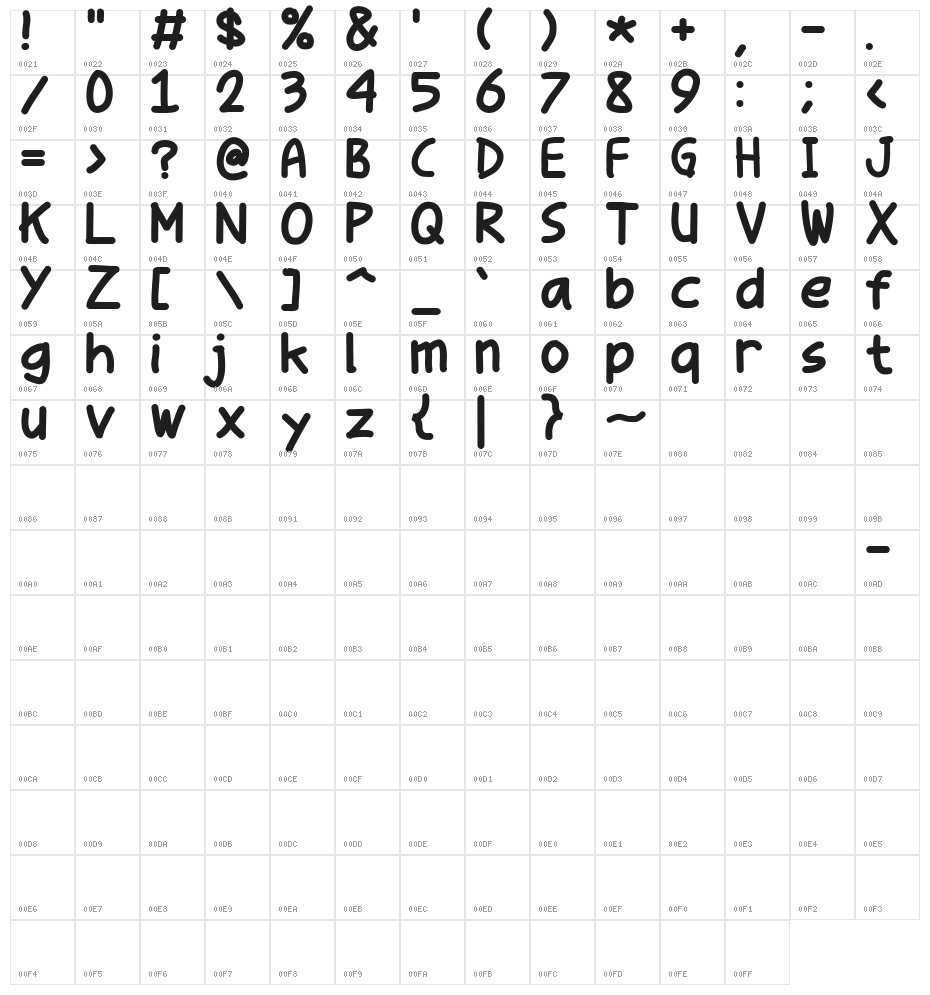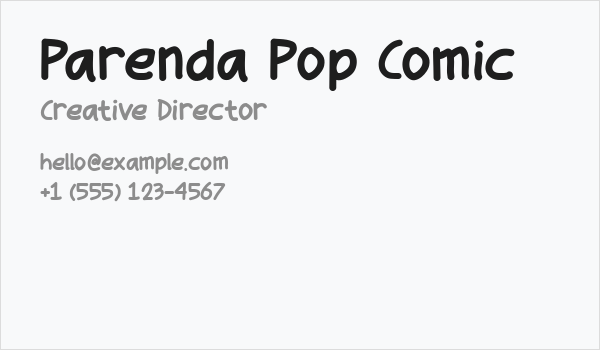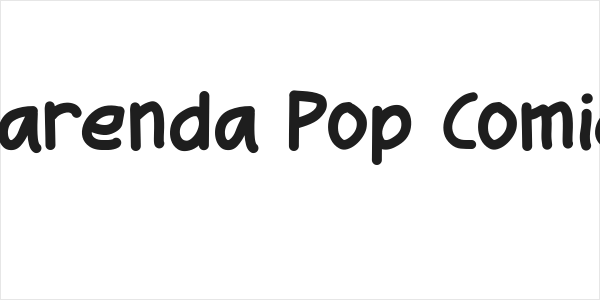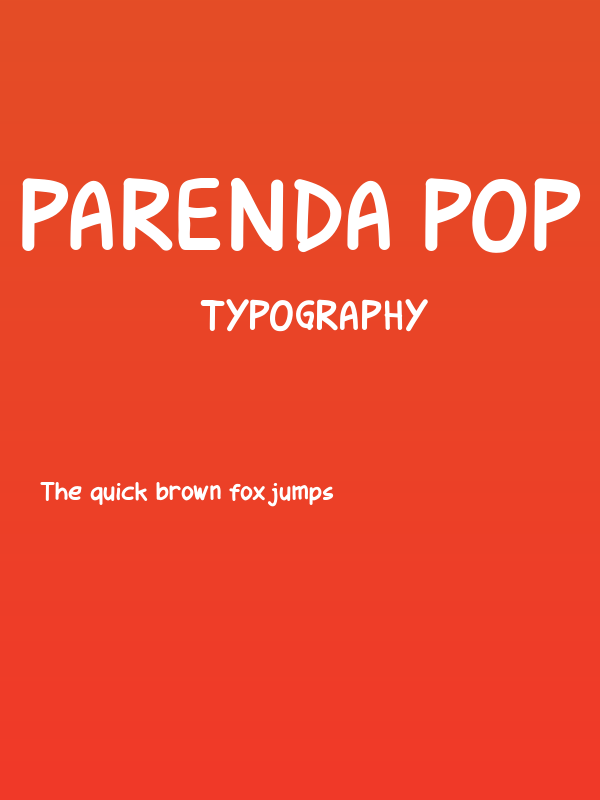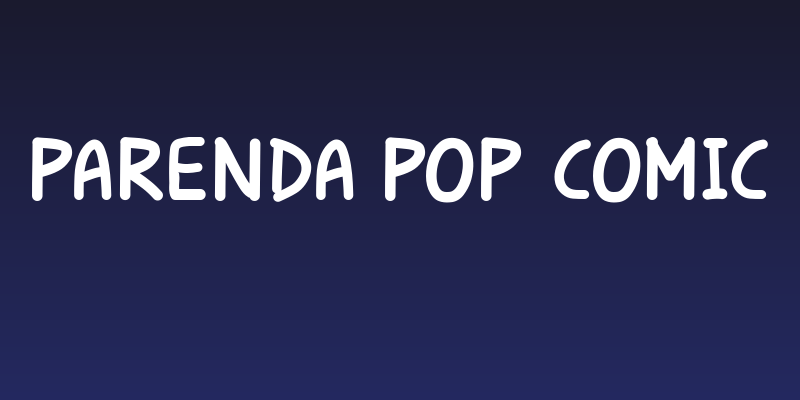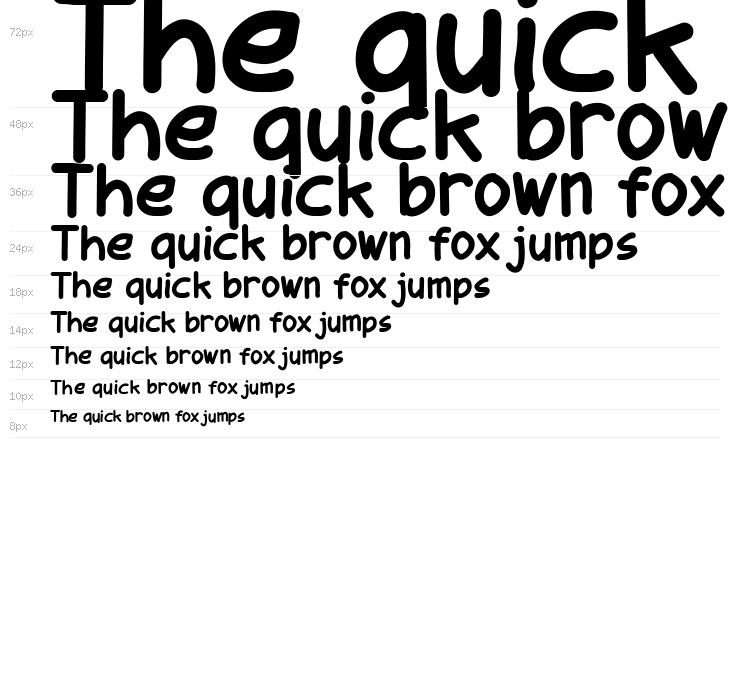
Parenda Pop Comic Font
Parenda Pop Comic Description
This playful and energetic font features bold, rounded characters with a hand-drawn aesthetic. The letters are slightly irregular, giving them a whimsical and informal feel. The strokes are consistent in thickness, contributing to a cohesive look across both uppercase and lowercase letters. Numbers and special characters maintain the same lively style, making this font suitable for projects that require a fun and approachable vibe. The overall appearance is reminiscent of comic book lettering, with a modern twist that makes it versatile for various creative applications.
Overall StyleModern, Playful
Proposed ProjectsIdeal for children's books, comic strips, playful branding, and casual invitations.